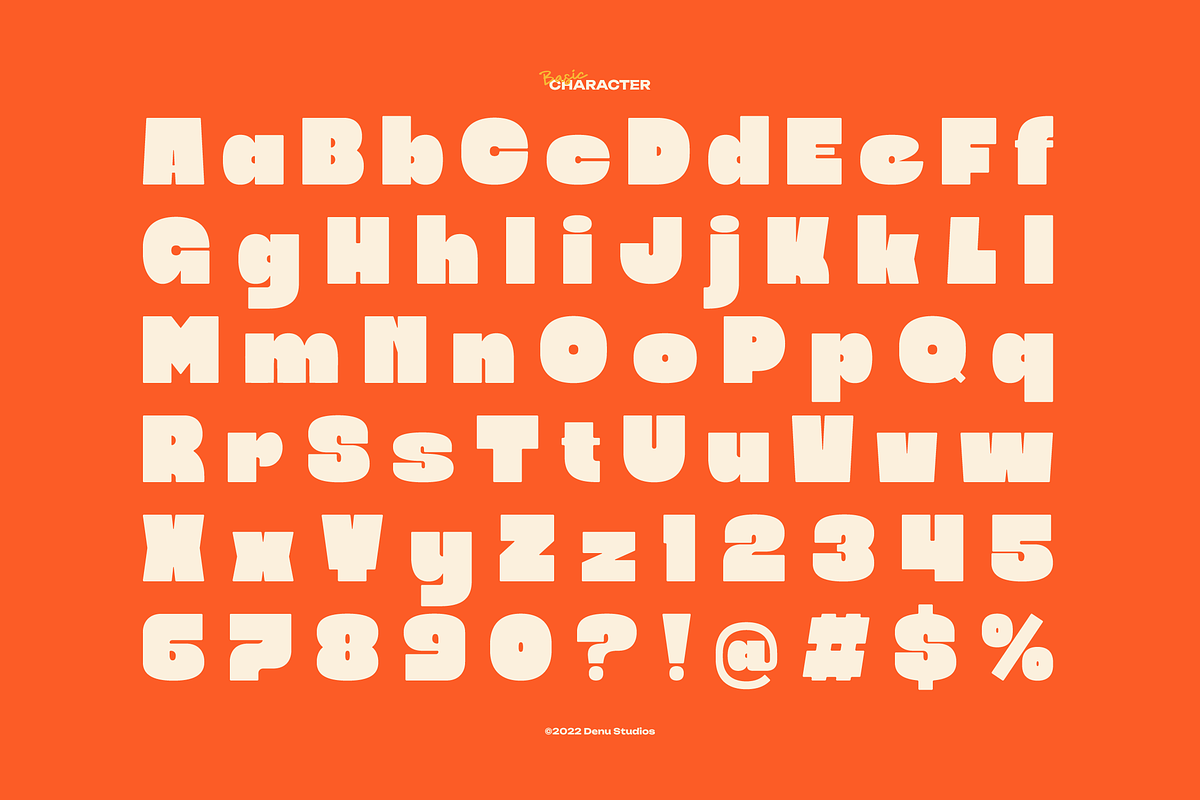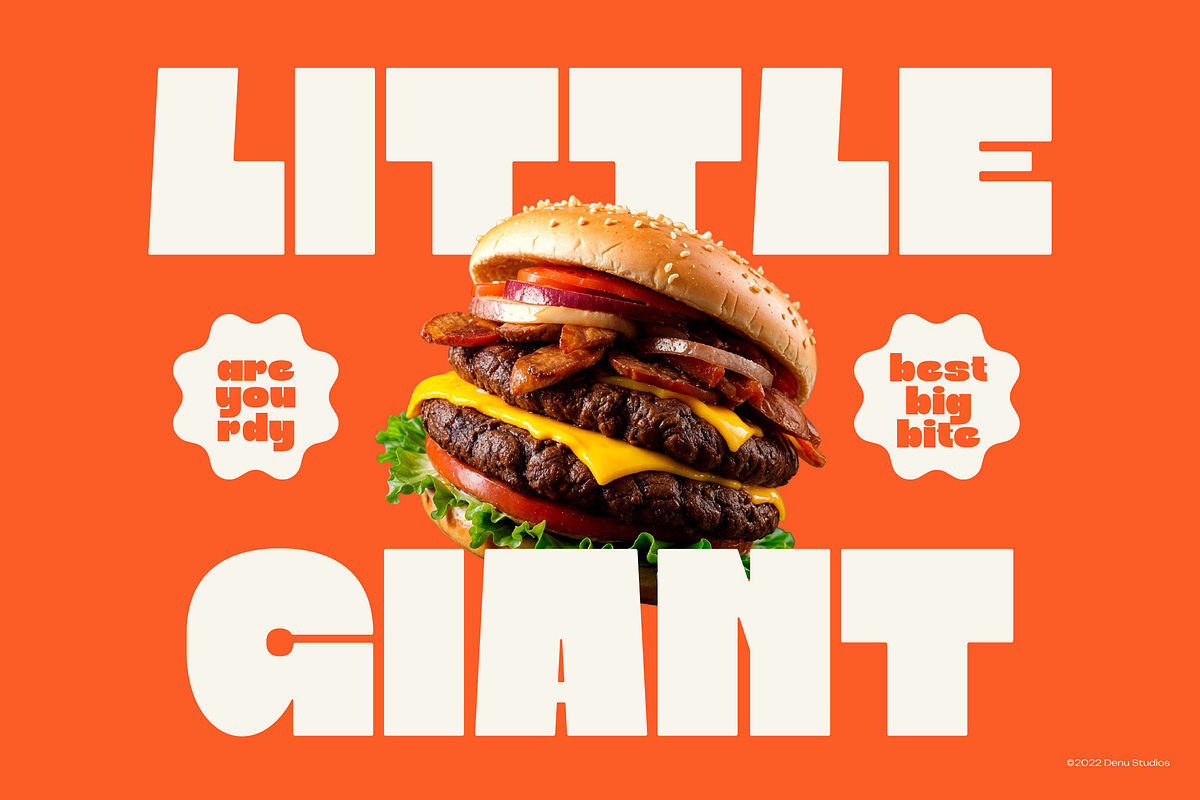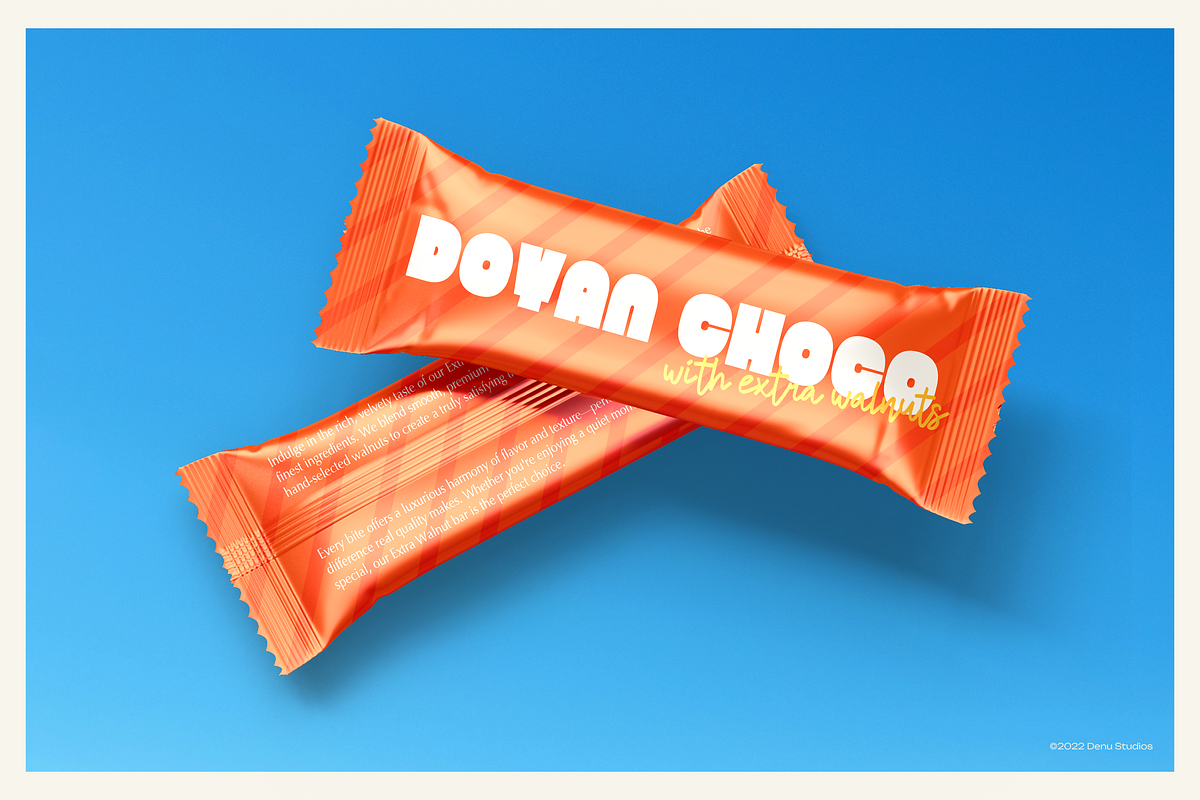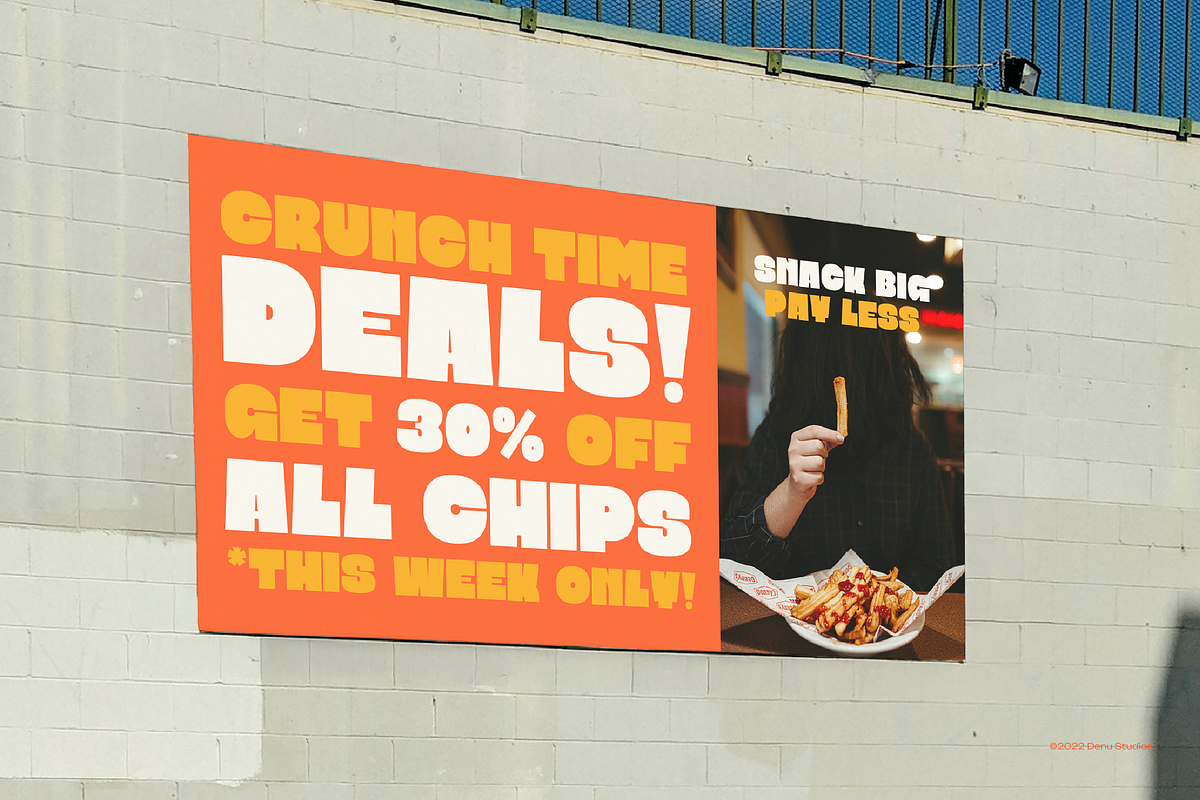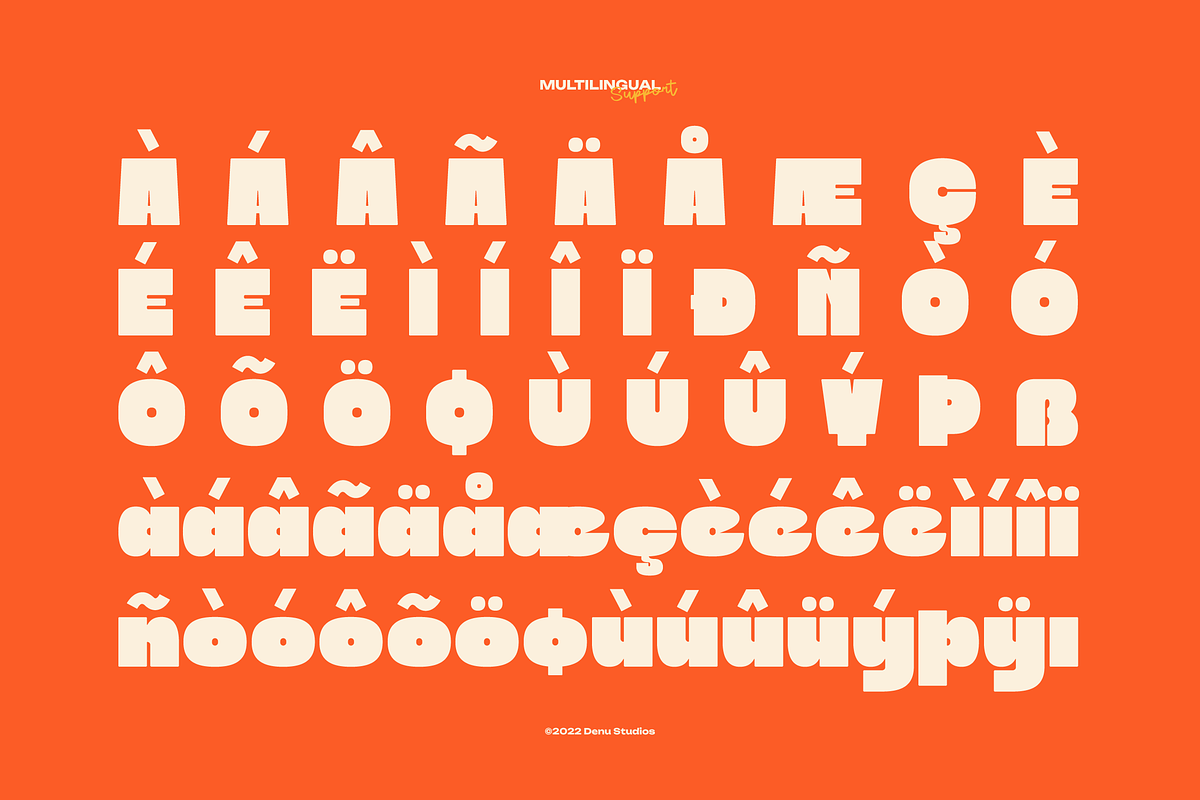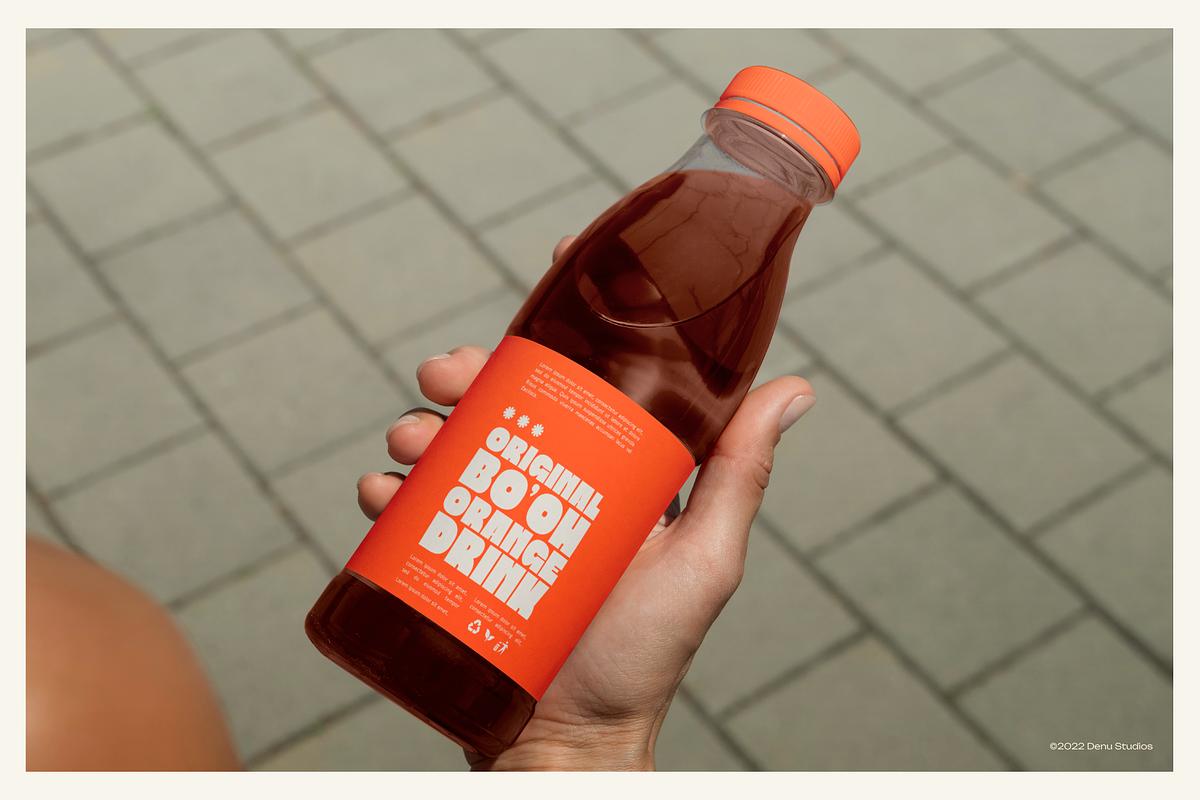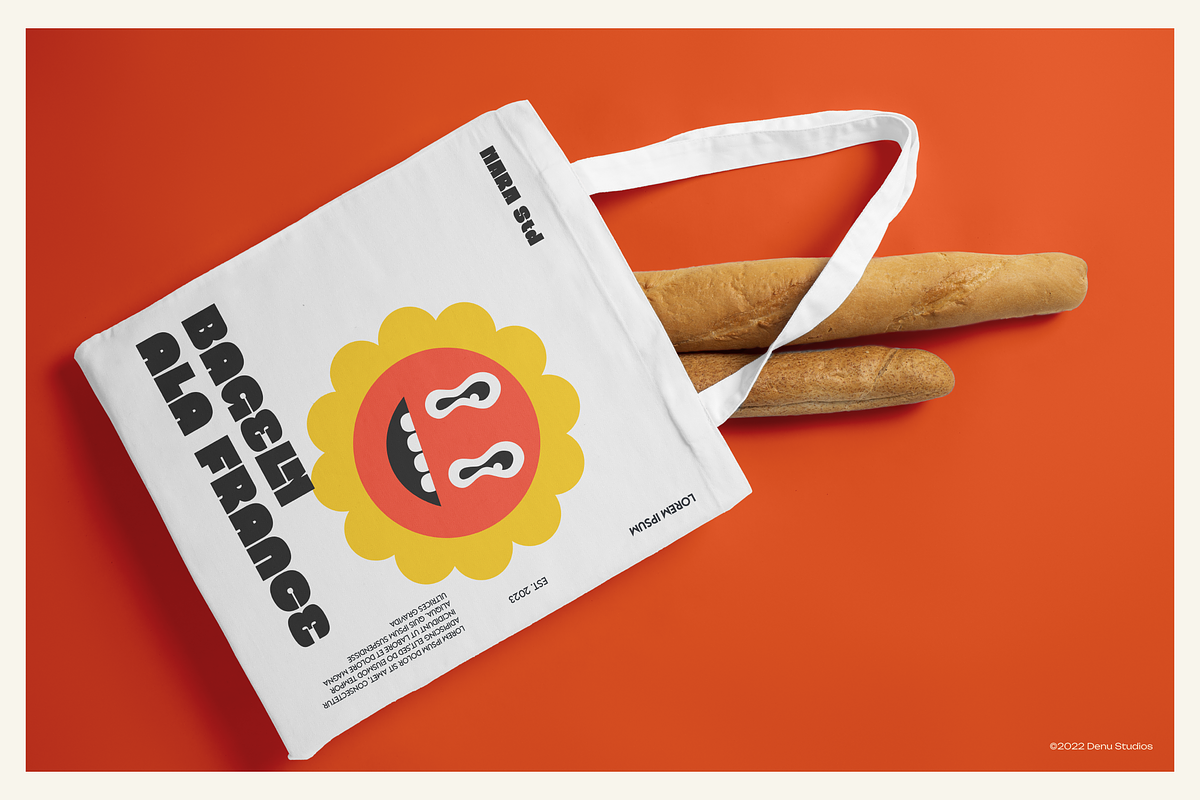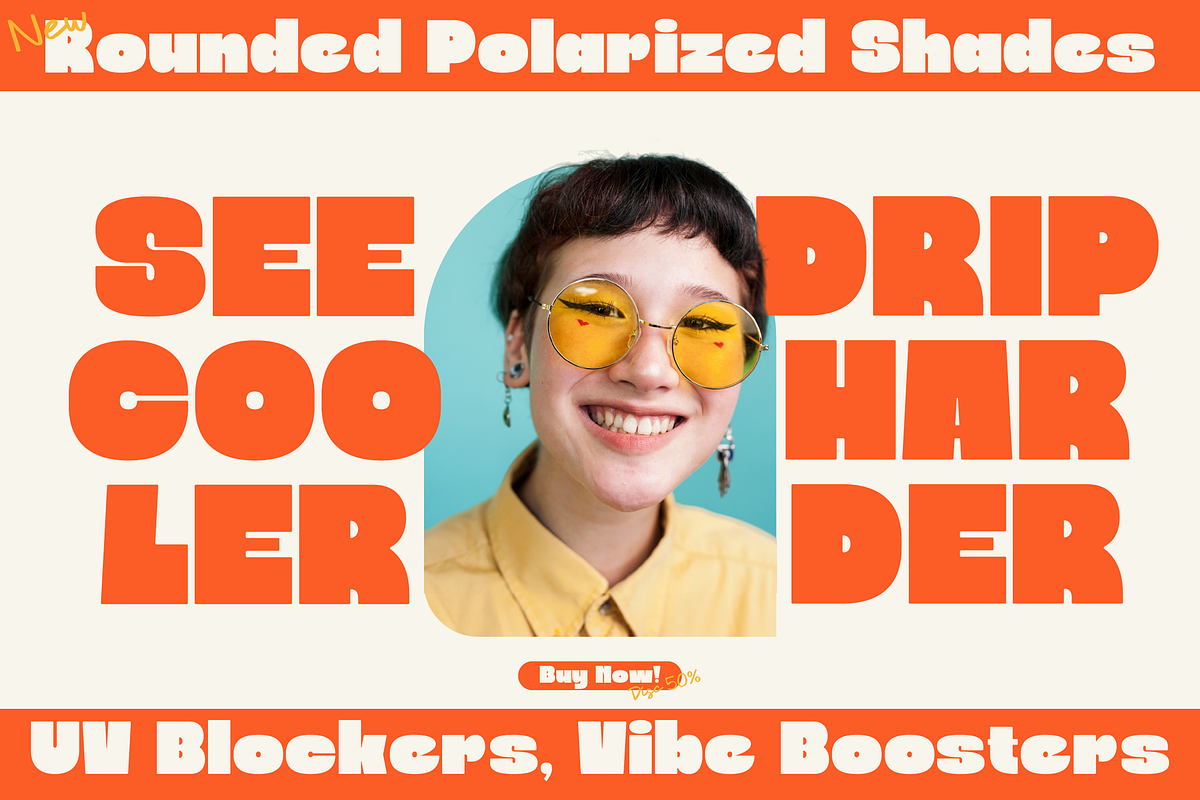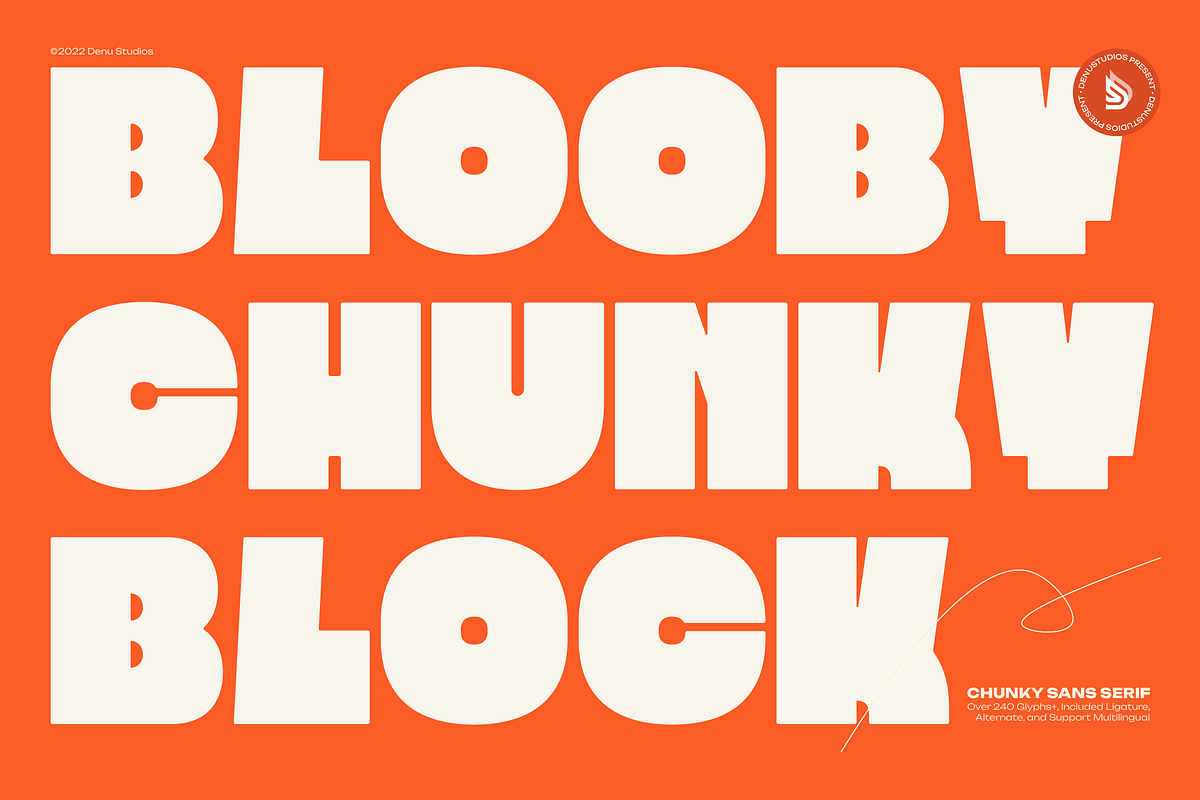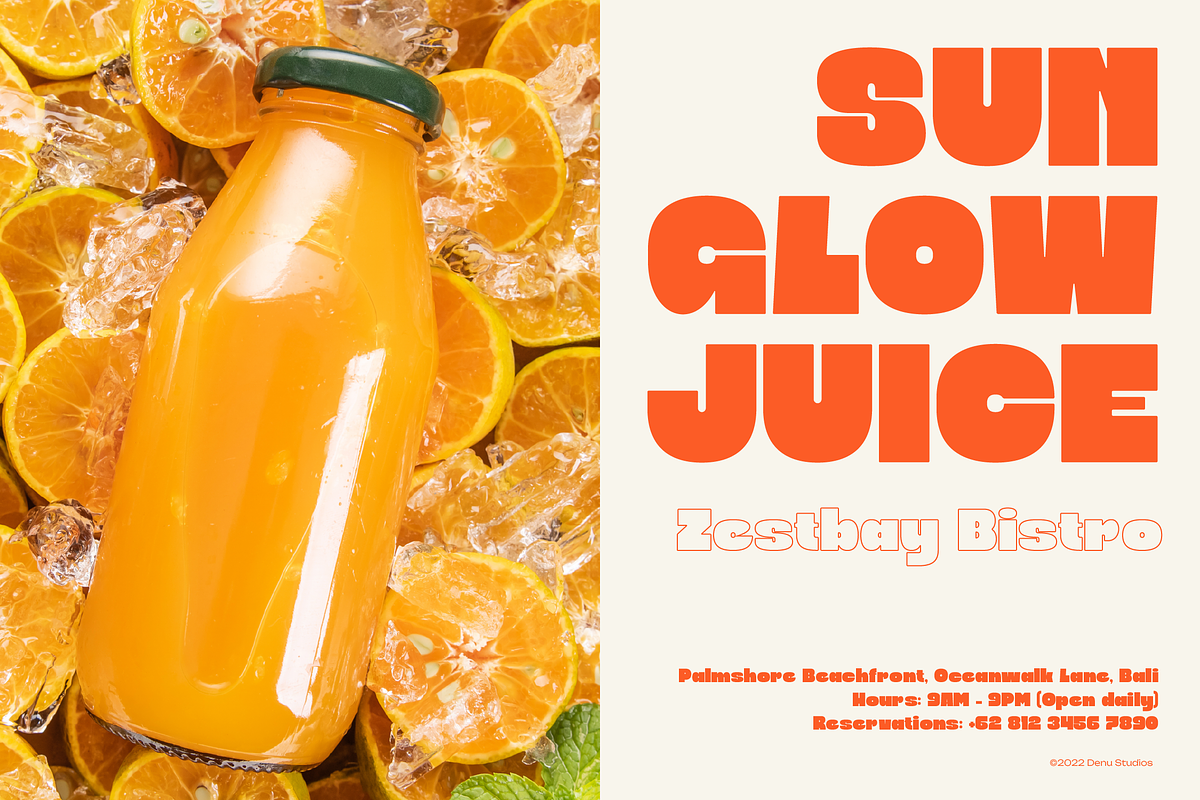
Blooby Chunky Block Sans Serif
Blooby Chunky Block | Display Bold Sans Serif, from Denustudios, suitable for any projects such as: logos, branding projects, homeware designs, product packaging, mugs, quotes, posters, shopping bags, t-shirts, book covers, name card, invitation cards, greeting cards, label, photography, watermark, special events, and all your other lovely projects that need a Display Bold Sans Serif taste.